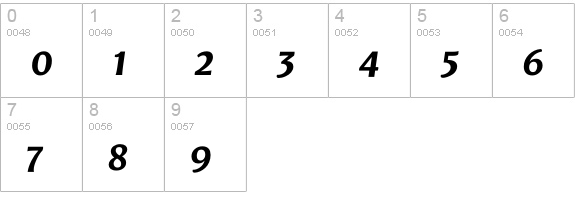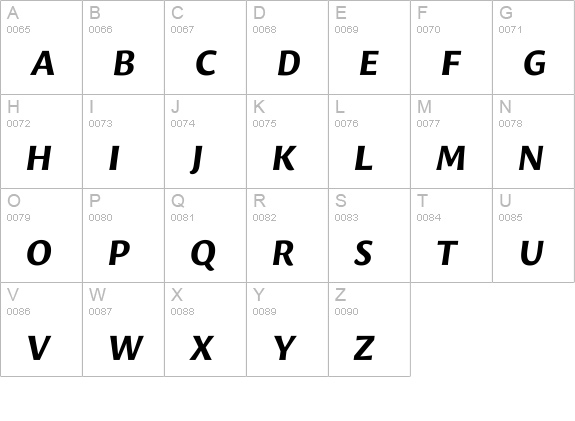
Leksa Sans Bold Italic Font Details
Leksa Sans Bold Italic is a strong, high-contrast, italic variant in the Leksa typeface family \xE2\x80\x94 well suited to headlines, attention-grabbing titles, and strong calls-to-action.
Leksa Sans Bold Italic font exudes a powerful and modern aesthetic with its strong, slanted characters. The bold weight adds a sense of confidence and impact to any design, making it perfect for headlines, titles, and emphasis within text. The italicized styling brings a dynamic touch, adding a sense of movement and sophistication to your projects. This versatile typeface is ideal for a wide range of design applications, from branding and advertising to editorial and web design. Its clean lines and sharp angles give it a contemporary edge, while still maintaining a high level of readability. Leksa Sans Bold Italic font truly stands out in any context, making a bold statement with its distinctive appearance. The best part? Leksa Sans Bold Italic font is completely free to download at FontsMarket.com. Now you can elevate your designs with this striking typeface without any cost involved. Don't miss out on the opportunity to enhance your projects with the bold and expressive Leksa Sans Bold Italic font. Download it now and let your creativity shine!